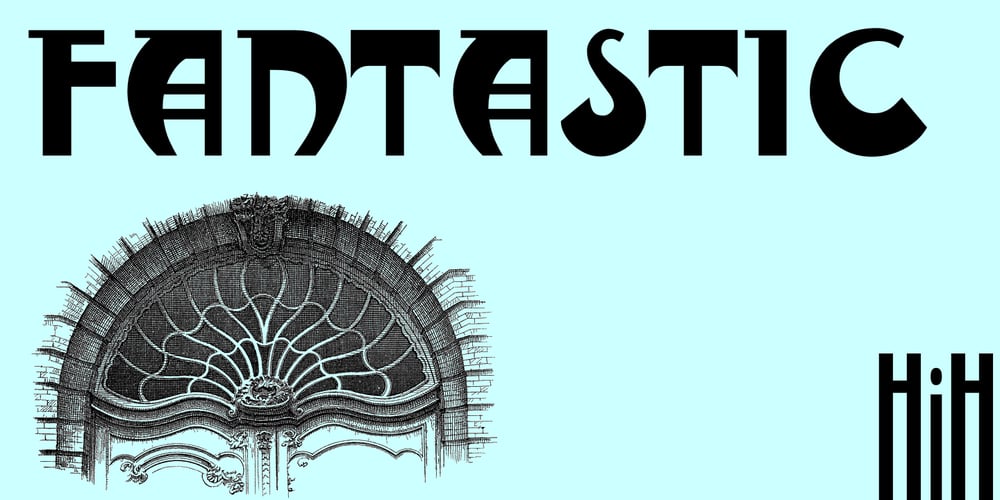
Fantastic ML
Fantastic ML font
Fantastic ML Font Family was designed by published by HiH. Fantastic ML contains 1 styles and family package options. Fantastic ML is an exuberant Art Nouveau font. It was originally released as “Modern Style” by Fonderie G. Peignot & Fils, Paris, France sometime before 1903. Since “Le style moderne” was the generic French name for Art Nouveau, it is possible that someone decided a less generic name was needed. The typeface became known as Fantastic. Compared to conventional text letters, it is just that. Fantastic has a whimsical, architectural feel. The typeface reminds me of a cross between Hoffmann’s Palais Stoclet in Brussels and Gaudi’s Sagrada Familia church in Barcelona. The letterforms themselves are similar to those by Ludwig von Zumbusch on the cover of “Jugend” in March, 1896, but with the addition of serifs. Fantastic ML is a decorative, all-cap font intended for display use and functions best at 18 points or larger. There are a total of 306 glyphs. In addition to the standard 1252 Western Europe Code Page with character slots up to decimal position 255, there are glyphs for the 1250 Central Europe, the 1252 Turkish and the 1257 Baltic Code Pages. However, some older applications may only be able to access the Western Europe character set (1252). The zip package includes two versions of the font at no extra charge. There is an OTF version which is in Open PS format and a TTF version which is in Open TT format. Use whichever works best for your applications.